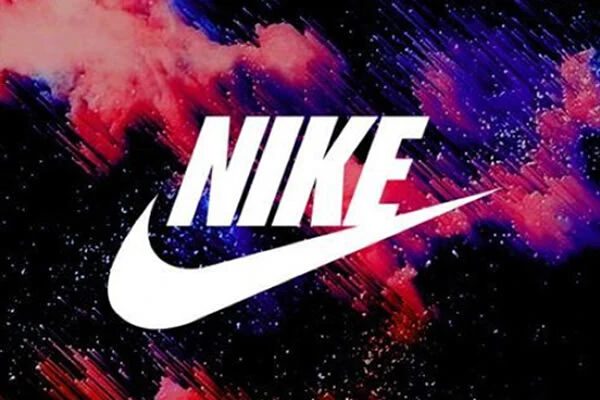
The font that is used in the official NIKE logo is a typeface by the name of Futura Condensed Bold Oblique. This is a classic sans-serif font that was created by the font author Paul Renner (Bauer Type Foundry) back in 1928. The NIKE Management team adopted this font to use across their entire branding in 1988. Since that time, the font has grown to become synonymous with the brand to the point where it is now commonly referred to as "the NIKE font".